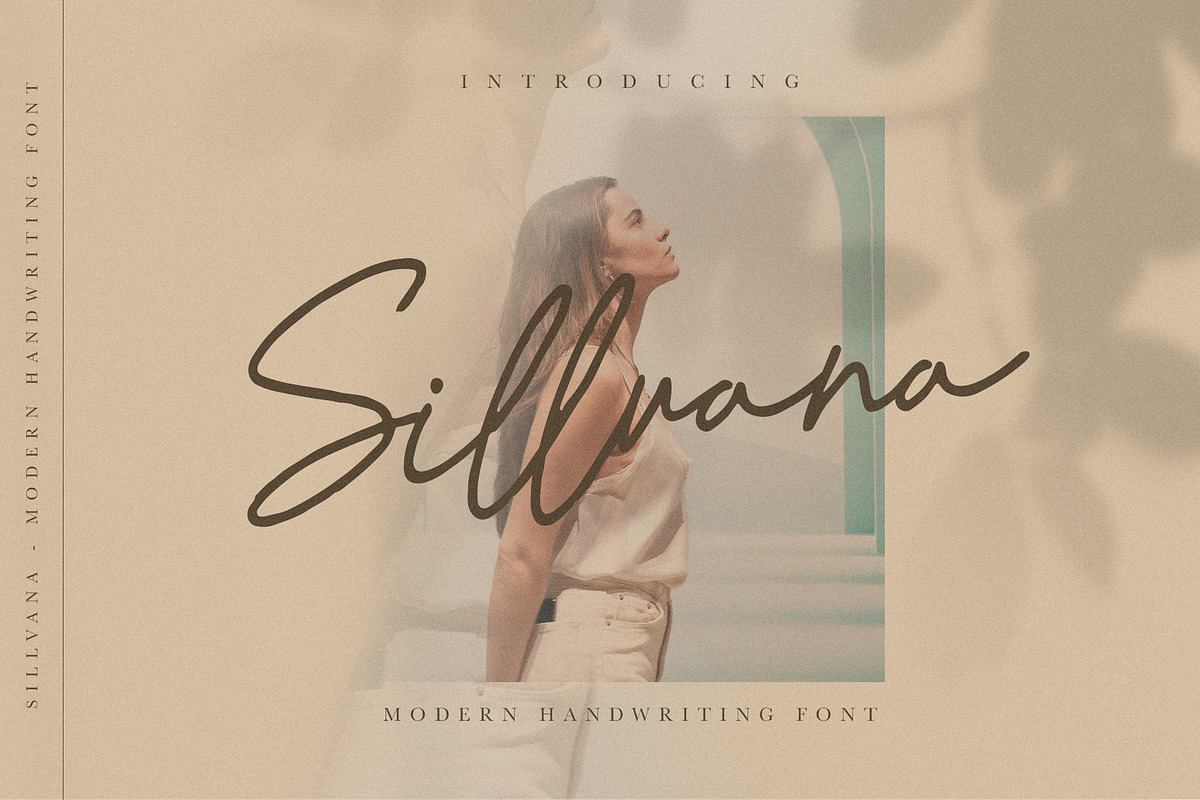
Sillvana – Modern Handwriting Font is perfect for contemporary personal branding, elegant signature designs, modern wedding stationery, sophisticated blog headers, refined business cards, stylish social media graphics, chic packaging design, upscale beauty product labels, modern greeting cards, elegant fashion branding, contemporary art projects, and sophisticated handwritten communications.
Sillvana – Modern Handwriting Font is exciting because it perfectly balances contemporary sophistication with authentic handwritten charm through its flowing letterforms that capture the elegance of modern penmanship while maintaining the personal touch that makes handwriting so appealing and relatable. This exceptional typeface features refined character strokes with contemporary styling that reflects today's design sensibilities while preserving the warmth and authenticity of genuine handwritten communication. The font's modern aesthetic creates instant connections with audiences who appreciate sophisticated design, personal authenticity, and the timeless appeal of beautiful handwriting.
Sillvana – Modern Handwriting Font includes comprehensive font families: Regular Elegant Style, Bold Confident Weight, Light Delicate Touch, Medium Sophisticated Balance, Italic Flowing Grace, Condensed Refined Format, Extended Generous Width, Contemporary Clean Version, Textured Authentic Alternative, and Special Modern Symbols, providing complete solutions for contemporary handwritten design needs and sophisticated personal brand communications.
This sophisticated typography solution transforms digital communications into elegant handwritten experiences through its modern aesthetic and refined penmanship qualities. Sillvana – Modern Handwriting Font Free Download enables designers and contemporary brands to access premium modern handwriting typography that instantly adds sophistication, personal touch, and contemporary elegance to any creative project. The font's carefully crafted modern elements ensure authentic handwritten character while maintaining excellent readability and distinctive contemporary presence.
Personal brands, luxury businesses, and sophisticated companies trust Sillvana – Modern Handwriting Font for its ability to communicate elegance, authenticity, and modern sophistication to audiences seeking refined personal connections and contemporary handwritten aesthetics. The typeface's elegant construction performs beautifully across various applications, from intimate personal communications to large-scale sophisticated branding campaigns. Its extensive character support includes multilingual capabilities and modern design elements that enhance contemporary brand presentations.
The creative inspiration behind Sillvana – Modern Handwriting Font draws from contemporary calligraphy trends, modern penmanship styles, and the evolving aesthetics of handwritten communication in our digital age. This sophistication-focused approach creates a font that feels genuinely modern while maintaining the timeless appeal of beautiful handwriting across different contemporary contexts and refined brand expressions.